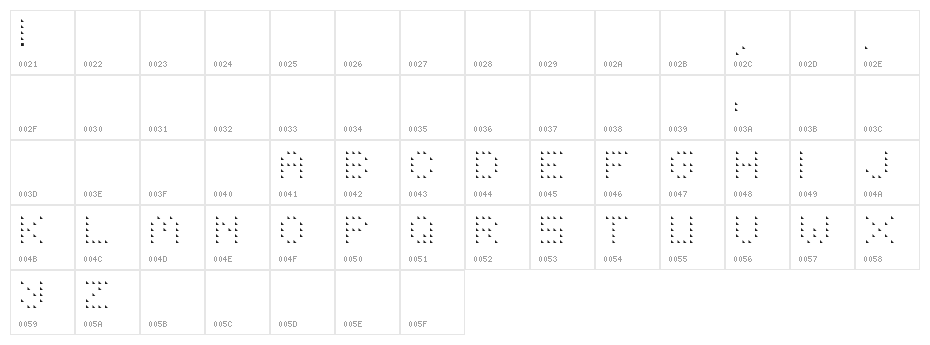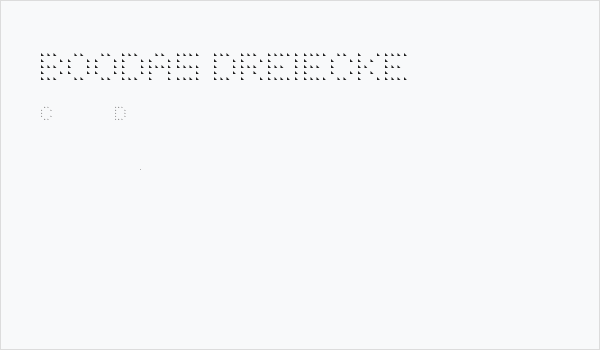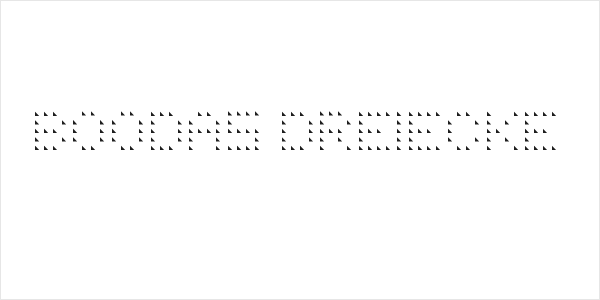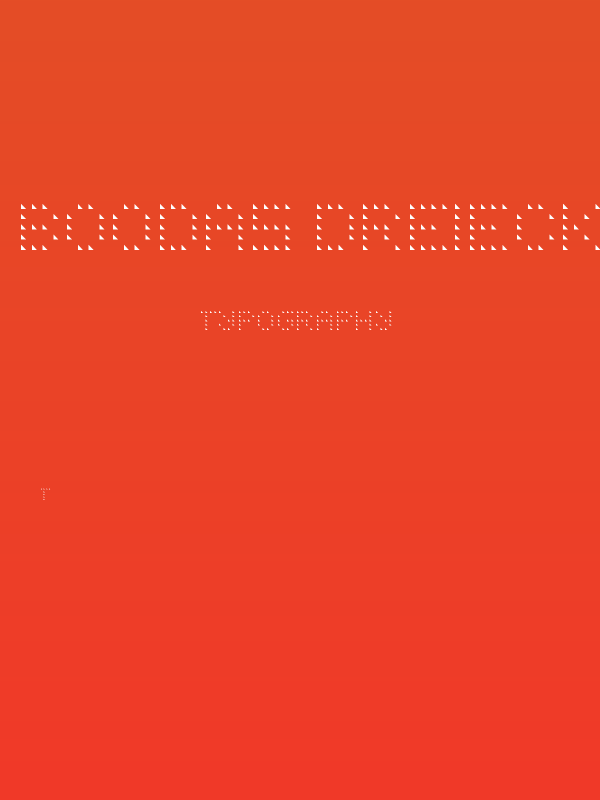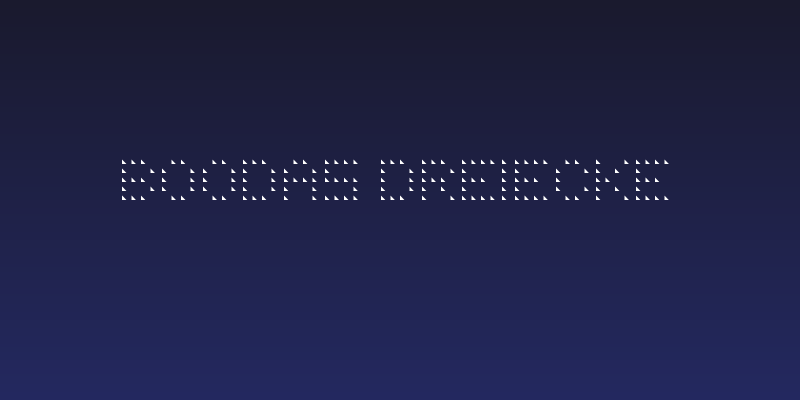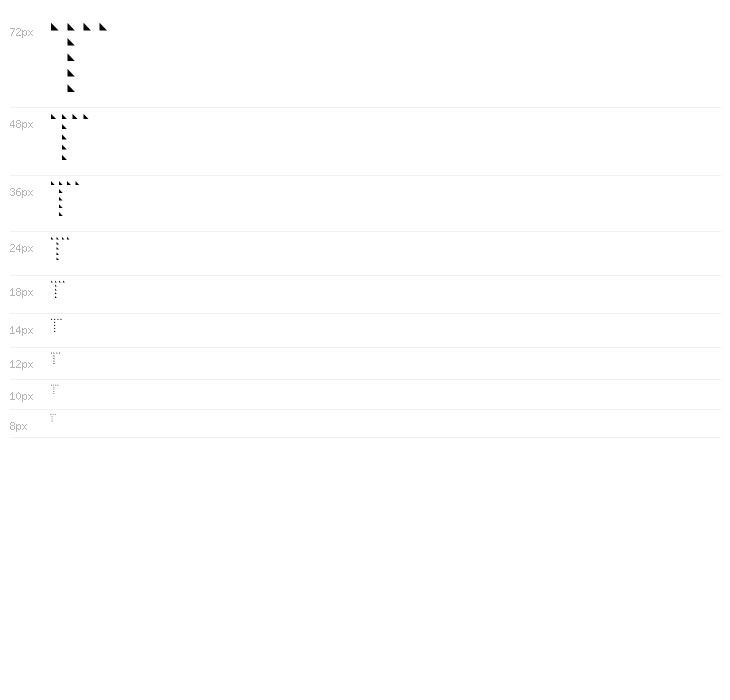
BOODAS DREIECKE Font
BOODAS DREIECKE Description
This font features a unique design where each character is constructed using small, uniformly spaced triangular shapes. The geometric nature of the triangles gives the font a distinct, modern appearance. The uppercase letters are clearly defined, with each triangle contributing to the overall form of the character. The font lacks lowercase letters and numbers, focusing solely on uppercase letters and a few special characters. The spacing between the triangles is consistent, creating a cohesive and structured look. This font is highly decorative and would stand out in any design project that requires a bold and unconventional typeface.
| Use Case | Logos, Posters, Headlines |
| Proposed Projects | Ideal for modern art projects, branding for tech companies, or any design requiring a futuristic and bold typeface. |